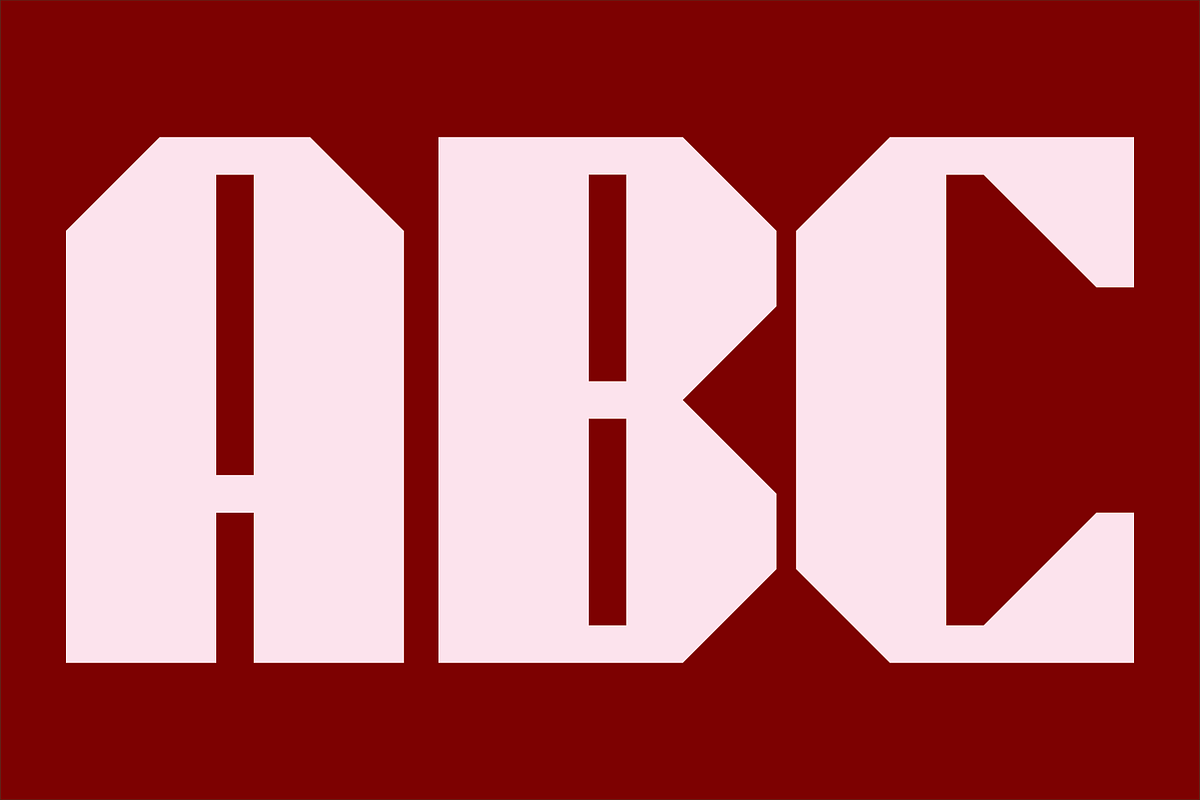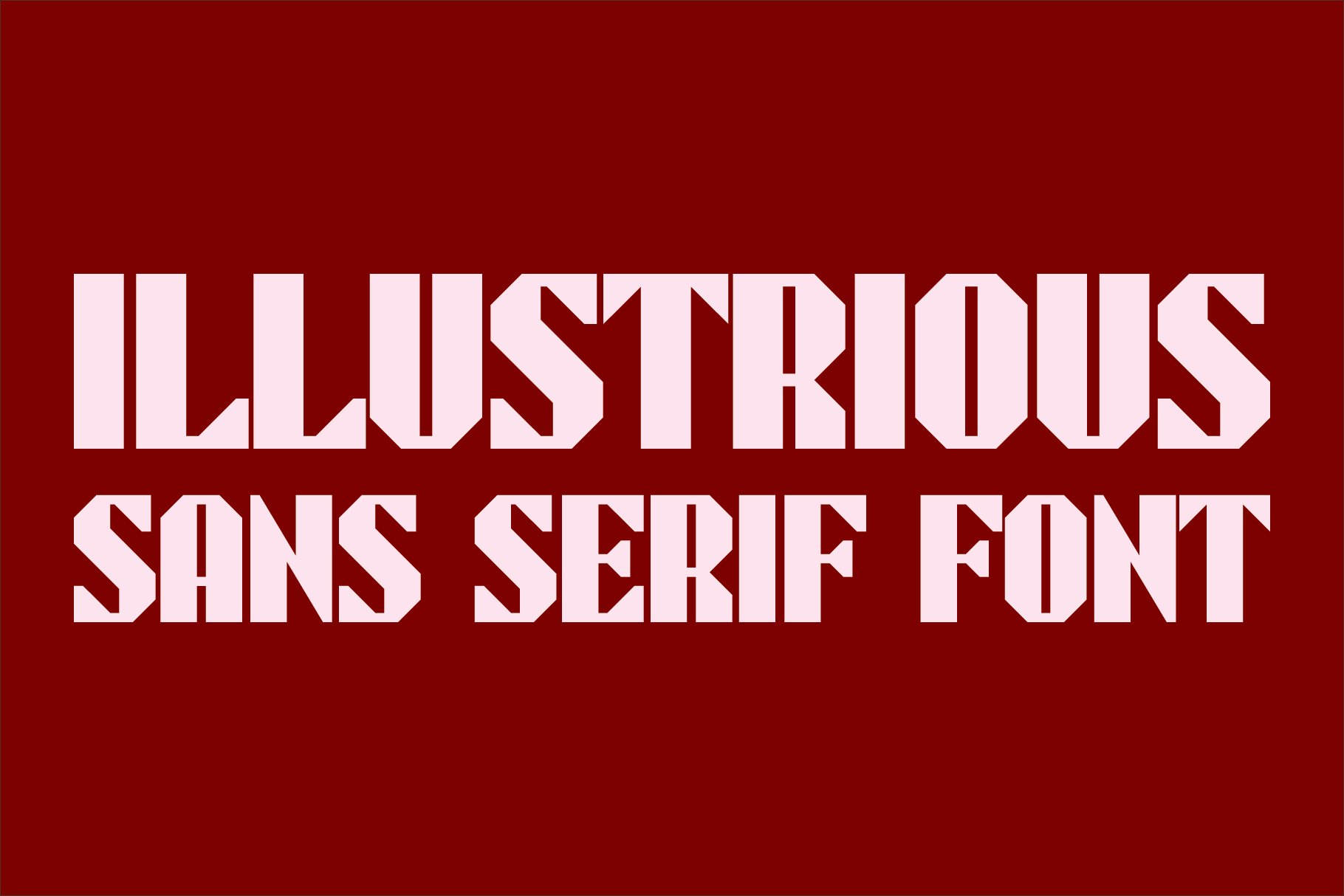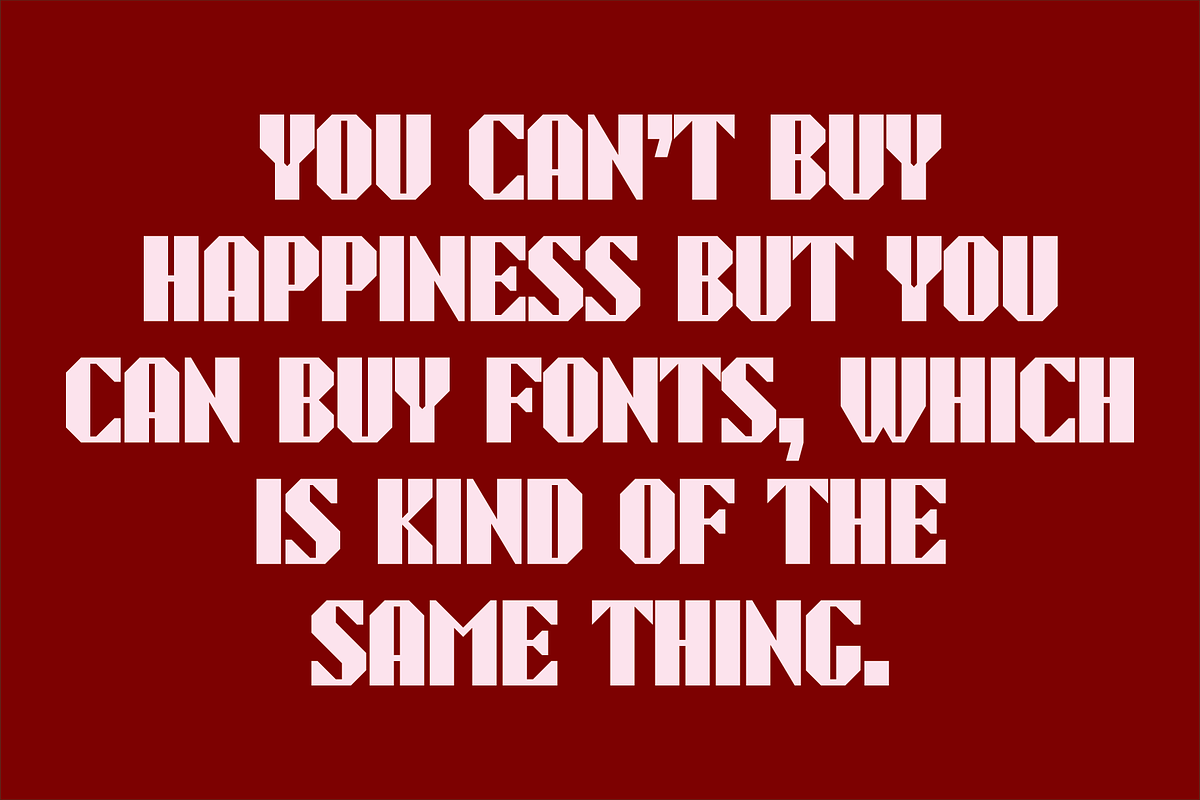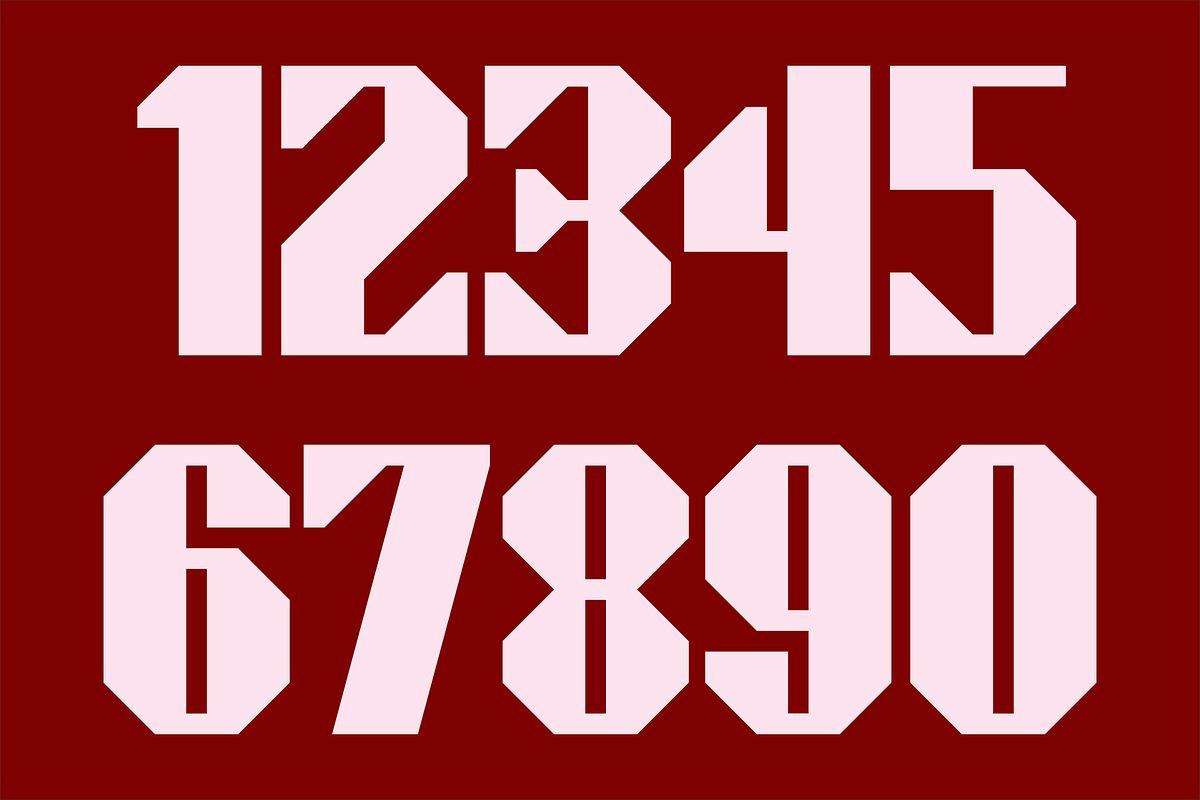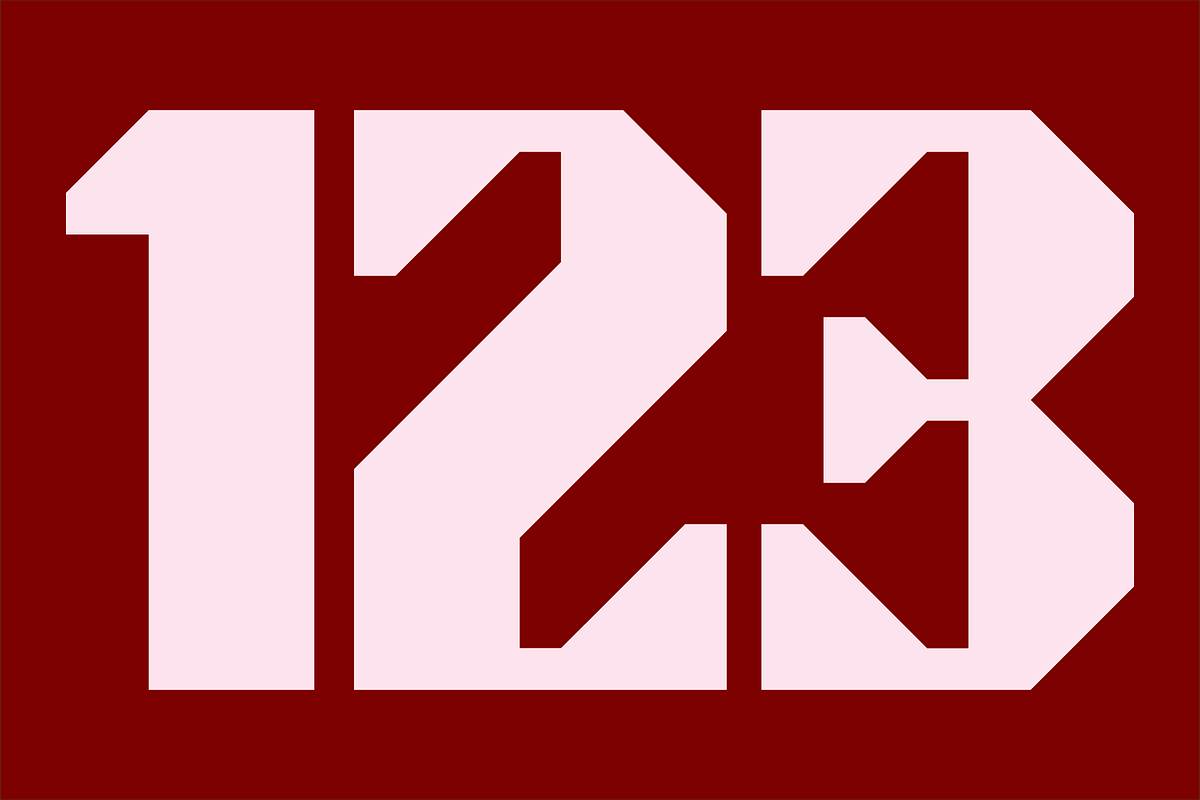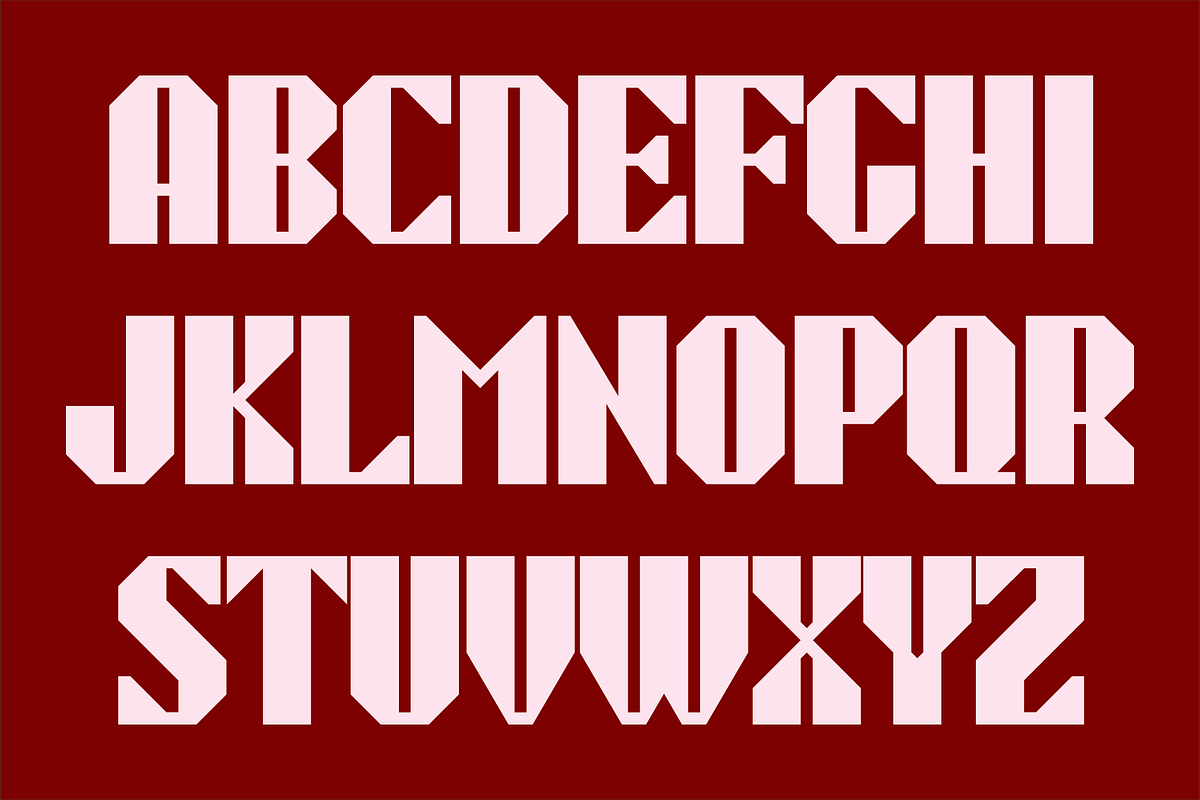
Illustrious - Sans Serif Font
Illustrious is an all caps, bold, sans serif font. It is ideal for headlines, titles, branding, and small blocks of text.